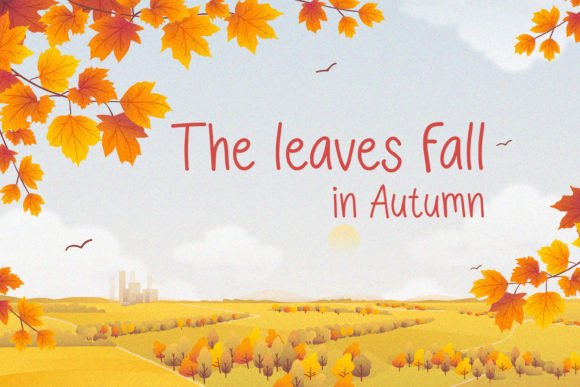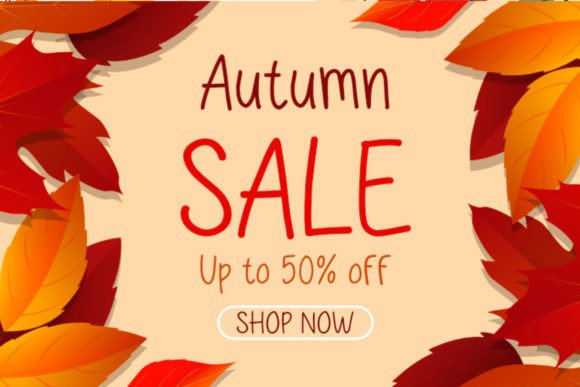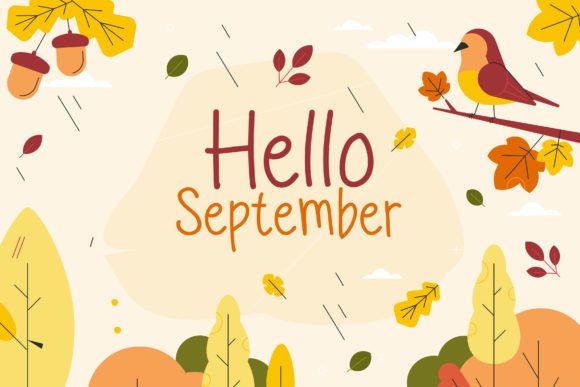
A New Chapter Begins: Discover the Charm of Autumn Morning Font
There’s something special about sitting down with a warm cup of coffee on a crisp autumn morning, surrounded by the vibrant colors of fallen leaves. The air is filled with the sweet scent of nostalgia, and the world feels like a fresh canvas waiting to be explored. As you start your day, you can’t help but feel inspired to create something beautiful.
That’s exactly what Autumn Morning Font is all about – capturing the essence of a new beginning and infusing it into your designs. This sweet and friendly handwritten font is perfect for adding a personal touch to your projects, whether it’s jotting down notes, writing a diary, or crafting eye-catching headlines. As a designer, you’ll appreciate the versatility and charm of Autumn Morning Font, which makes it an invaluable addition to your toolkit.
Autumn Morning Font Key Features
- Font Family: Autumn Morning, a script font designed to evoke a sense of warmth and coziness.
- Font Size: Designed to be used at medium to large sizes, ranging from 12pt to 72pt, for optimal readability.
- Unique Characteristics: Features a unique, hand-drawn feel with subtle imperfections and texture, giving it a warm and inviting appearance.
Designer Review: Autumn Morning Font
I recently had the chance to work with Autumn Morning Font, and I must say it’s a unique and charming addition to any design project. ✨ One of the things that stands out about this font is its organic feel. It’s perfect for creating a cozy and inviting atmosphere in your designs. ✨ The subtle imperfections and irregularities in the letterforms give it a handcrafted feel that’s hard to find in many digital fonts.
Another thing I appreciate about Autumn Morning Font is its flexibility. ✨ It’s suitable for a wide range of design applications, from branding and advertising to editorial and publishing. The font’s versatility makes it an excellent choice for designers who need a font that can adapt to different contexts and moods.
- ⚠️ Limited character set: Autumn Morning Font is not a comprehensive font family, with a limited character set that may not include all the characters you need for your project.
- ⚠️ May not be suitable for body text: Due to its ornate and decorative nature, Autumn Morning Font may not be the best choice for large blocks of body text. It’s better suited for headlines, titles, and other display typography.
Overall, I think Autumn Morning Font is a great addition to any designer’s toolkit. Its unique personality and flexibility make it an excellent choice for designers who want to add a touch of warmth and character to their projects.
Getting the Most Out of Autumn Morning Font
To get the most out of Autumn Morning Font, use it for designs that require a warm and inviting feel, such as:
- Seasonal marketing materials (e.g. Halloween, Thanksgiving)
- Outdoor and nature-themed designs (e.g. park signs, nature guides)
- Food and beverage branding (e.g. coffee shops, bakeries)
Autumn Morning Font is commonly used for:
- Headlines and